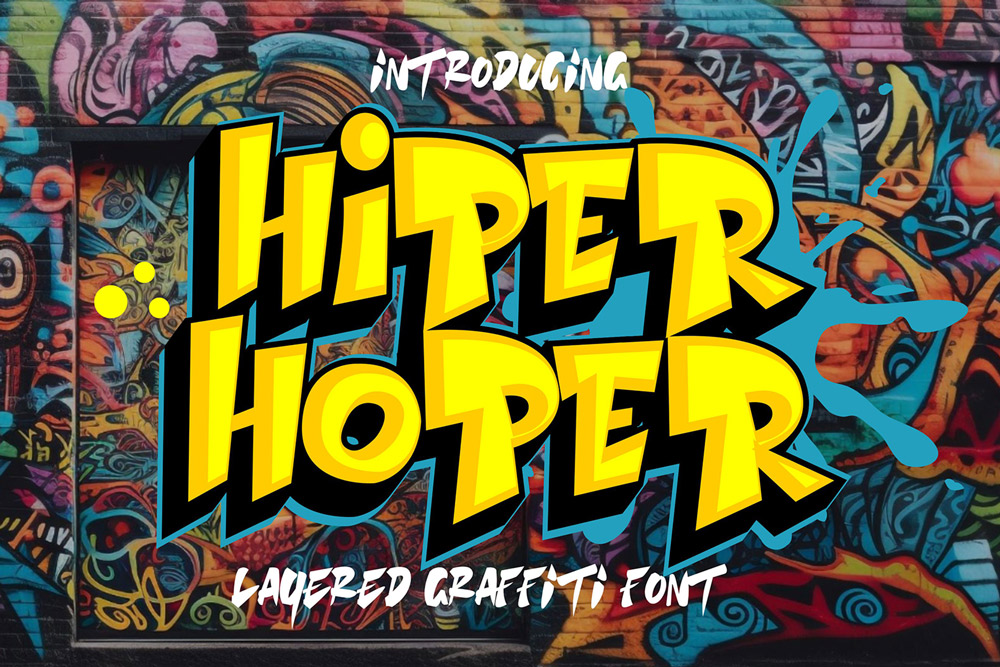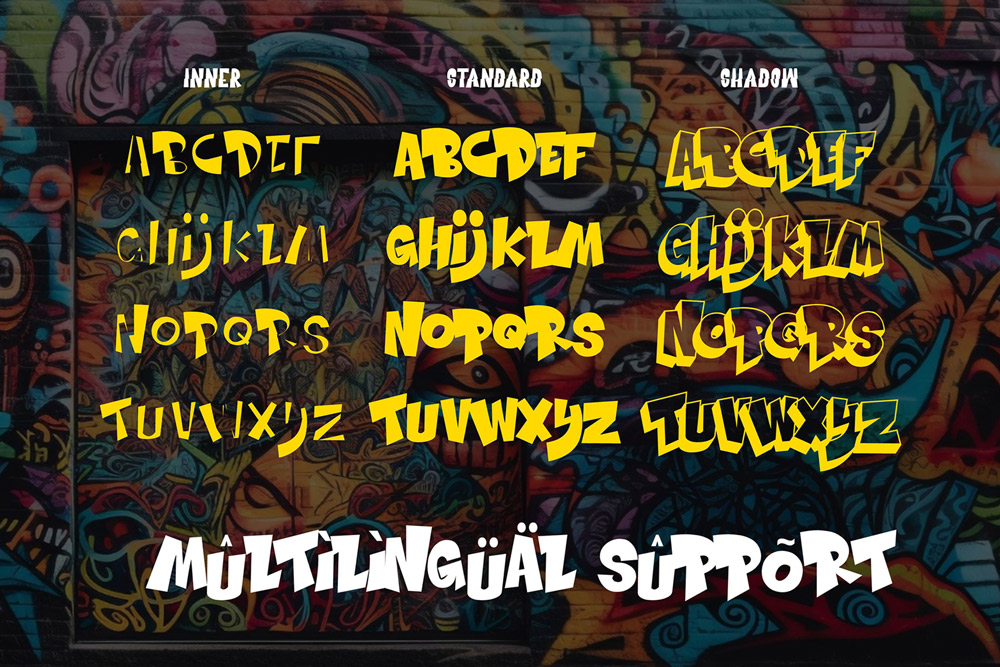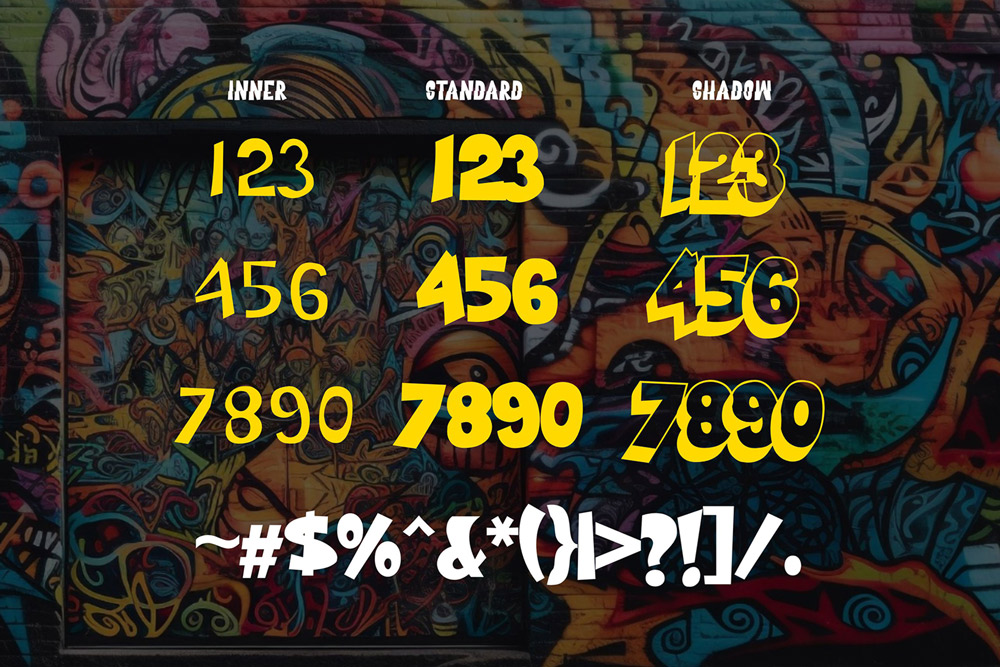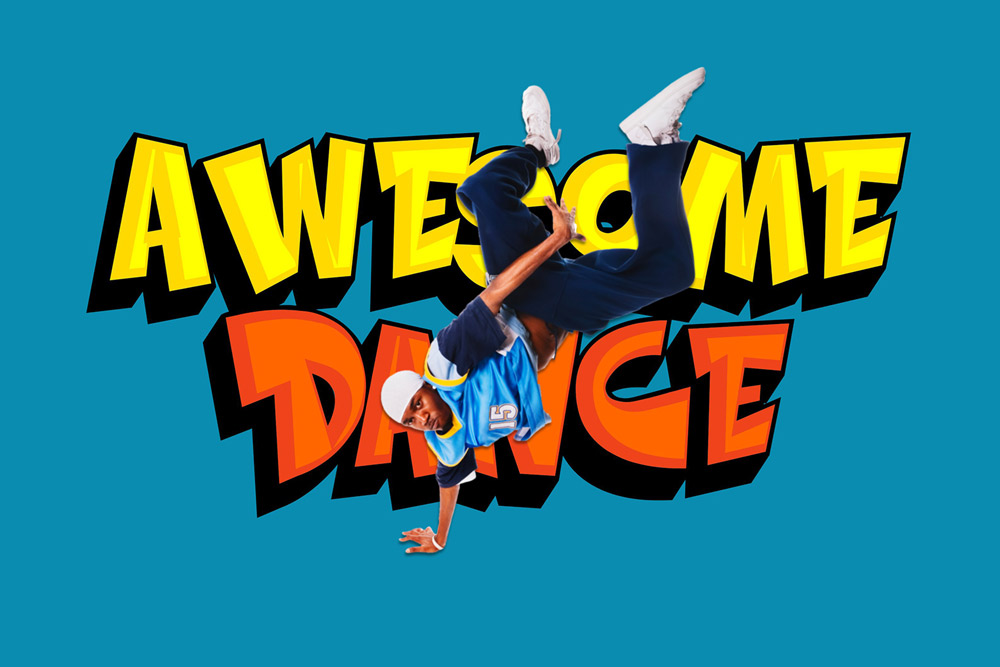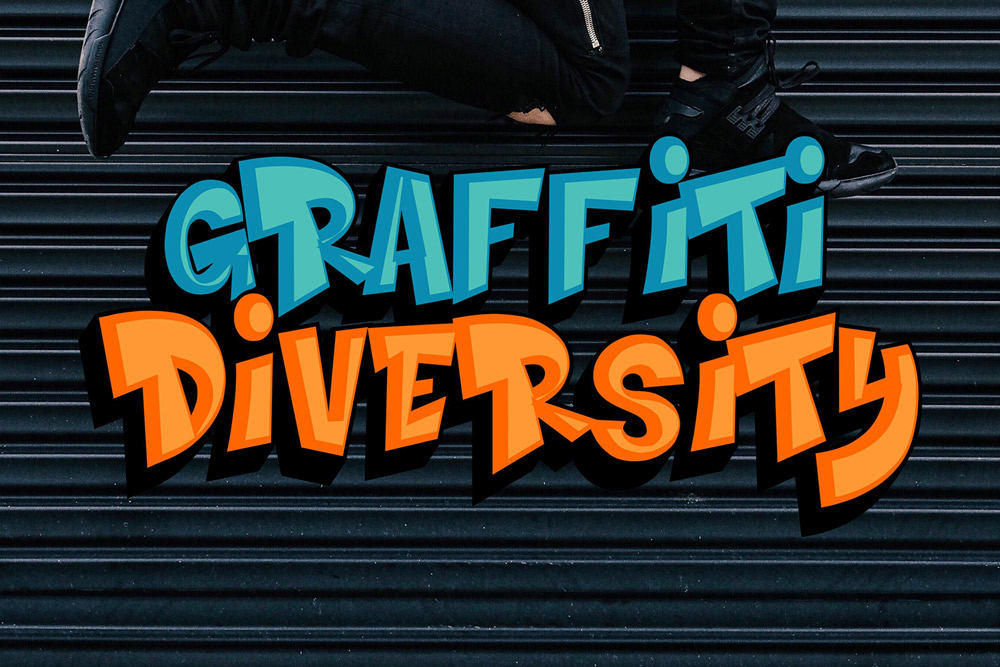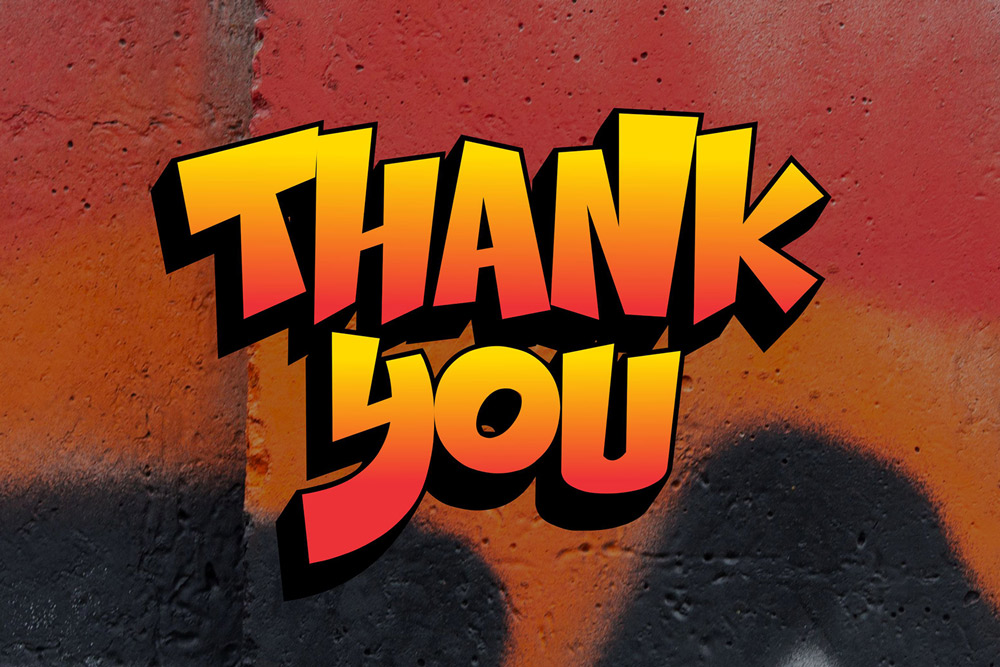
About Hiper Hoper
Hiper Hoper is a bold 3D layered graffiti font inspired by underground street art, dimensional urban lettering, hip hop culture, and modern graffiti typography trends. Designed with dynamic layered effects and expressive street-inspired character shapes, this urban display font creates powerful visual depth for creative projects that demand attention. Whether you are designing streetwear branding, gaming graphics, music artwork, social media visuals, or urban merchandise, Hiper Hoper delivers bold typography with authentic street culture energy.
This layered graffiti font combines modern 3D typography aesthetics with raw urban graffiti influence, creating a strong visual identity perfect for designers who want impactful and energetic lettering. The dimensional layered structure gives every composition a sense of depth and movement, making the font ideal for posters, logos, apparel graphics, esports branding, and promotional campaigns.
Hiper Hoper is carefully crafted to balance aggressive graffiti style with professional typography usability. The bold layered construction enhances readability while preserving the authentic personality of street-inspired lettering. From gaming logos and rap album covers to fashion branding and YouTube thumbnails, this modern graffiti font adapts beautifully to both digital and print applications.
3D Layered Graffiti Font Style
Hiper Hoper features dimensional graffiti-inspired letterforms influenced by street murals, urban spray paint art, layered wildstyle typography, and underground street culture. The layered effects create bold visual depth and energetic urban personality.
Uppercase Characters
This urban graffiti font includes complete uppercase characters carefully crafted with bold dimensional details and authentic street aesthetics.
Multilingual Support
Hiper Hoper supports multilingual characters, making it suitable for international branding projects, social media graphics, posters, and merchandise designs.
Number and Punctuation
This modern layered graffiti font includes complete numbers and punctuation marks for versatile typography compositions across digital and print media.
Professional Layered Typography System
The font package includes multiple layered styles that allow designers to create custom dimensional typography effects with ease.
Why Designers Love Hiper Hoper
Strong 3D Urban Aesthetic
Designers love Hiper Hoper because it combines authentic graffiti culture with layered dimensional typography. The 3D effects instantly create bold visual impact and modern street personality.
Perfect for Streetwear Branding
Hiper Hoper works exceptionally well for clothing brands, urban fashion campaigns, sneaker promotions, skateboard graphics, and modern streetwear collections.
Excellent for Gaming and Music Graphics
This 3D graffiti font is ideal for gaming logos, esports branding, hip hop posters, rap album covers, Twitch banners, YouTube thumbnails, and energetic entertainment visuals.
Eye-Catching Social Media Typography
Content creators and digital marketers use Hiper Hoper to create attention-grabbing Instagram graphics, TikTok visuals, promotional banners, and viral social media content because the layered typography stands out instantly.
Flexible for Print and Digital Design
Despite its bold dimensional appearance, Hiper Hoper maintains strong readability and works effectively across posters, merchandise, branding systems, packaging, and advertising campaigns.
Perfect For
Hiper Hoper is perfect for:
- Streetwear branding
- Graffiti logo design
- Urban merchandise
- Gaming typography
- Esports branding
- Hip hop album covers
- Rap music posters
- YouTube thumbnails
- Social media graphics
- Skateboard artwork
- Urban apparel campaigns
- Promotional banners
- Digital advertising
- Music event flyers
- Creative typography projects
- Festival posters
- Youth branding visuals
- Modern urban artwork
- Layered poster design
- Street-inspired graphics
3D Graffiti Typography for Modern Branding
Modern branding trends increasingly embrace layered graffiti typography and dimensional urban visuals because they communicate creativity, confidence, rebellion, and youthful energy. Hiper Hoper is specifically designed to support these modern branding trends through expressive layered lettering and authentic street-inspired aesthetics.
The 3D layered structure gives typography compositions a more dynamic and visually engaging appearance. This modern graffiti font is especially effective for oversized headlines, gaming graphics, branding systems, social media campaigns, apparel artwork, and promotional posters.
Brands targeting gaming communities, fashion audiences, music fans, and youth culture consumers can use Hiper Hoper to create memorable visual identities with strong urban personality. The layered graffiti style helps projects stand out in highly competitive digital spaces where bold visual impact is essential.